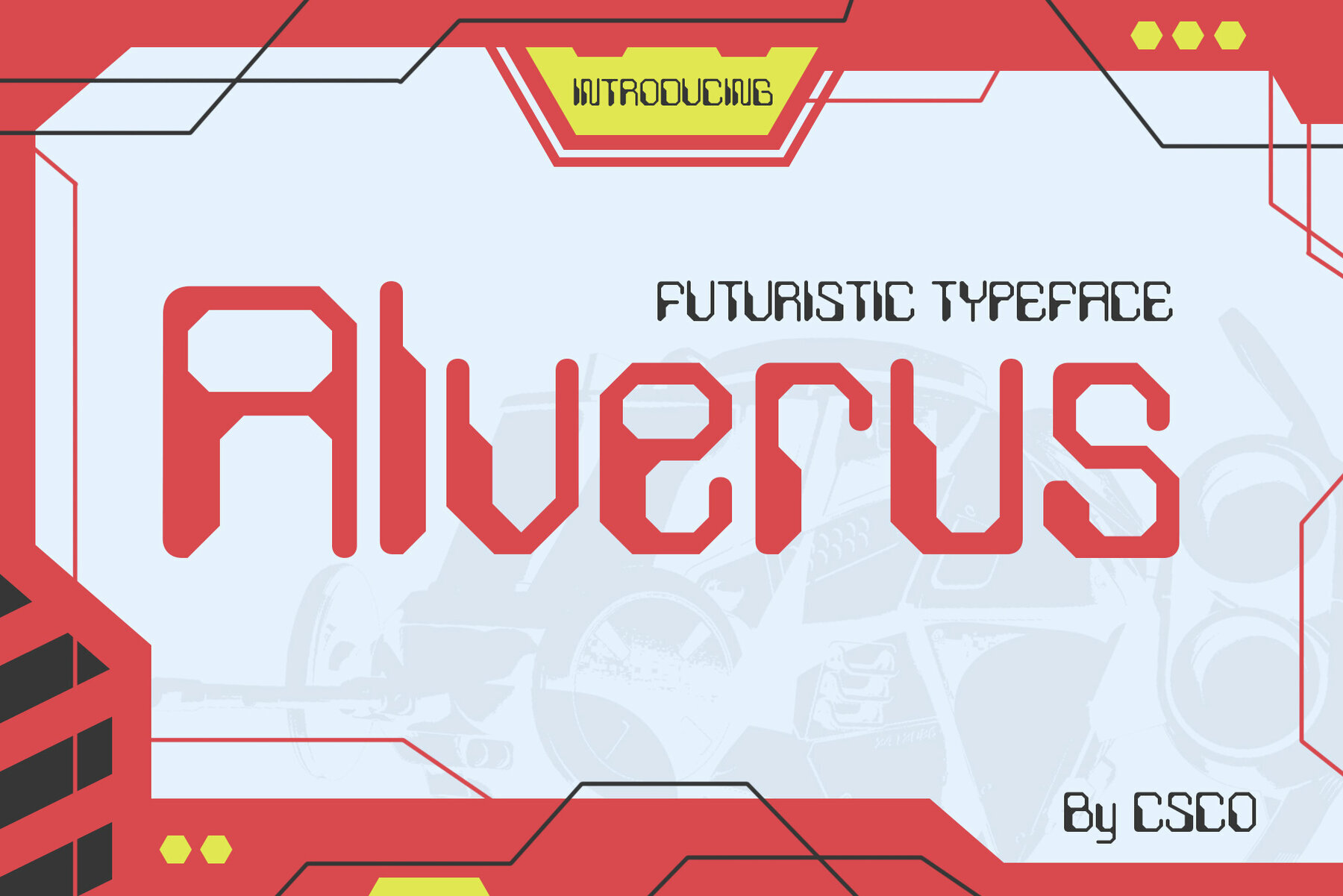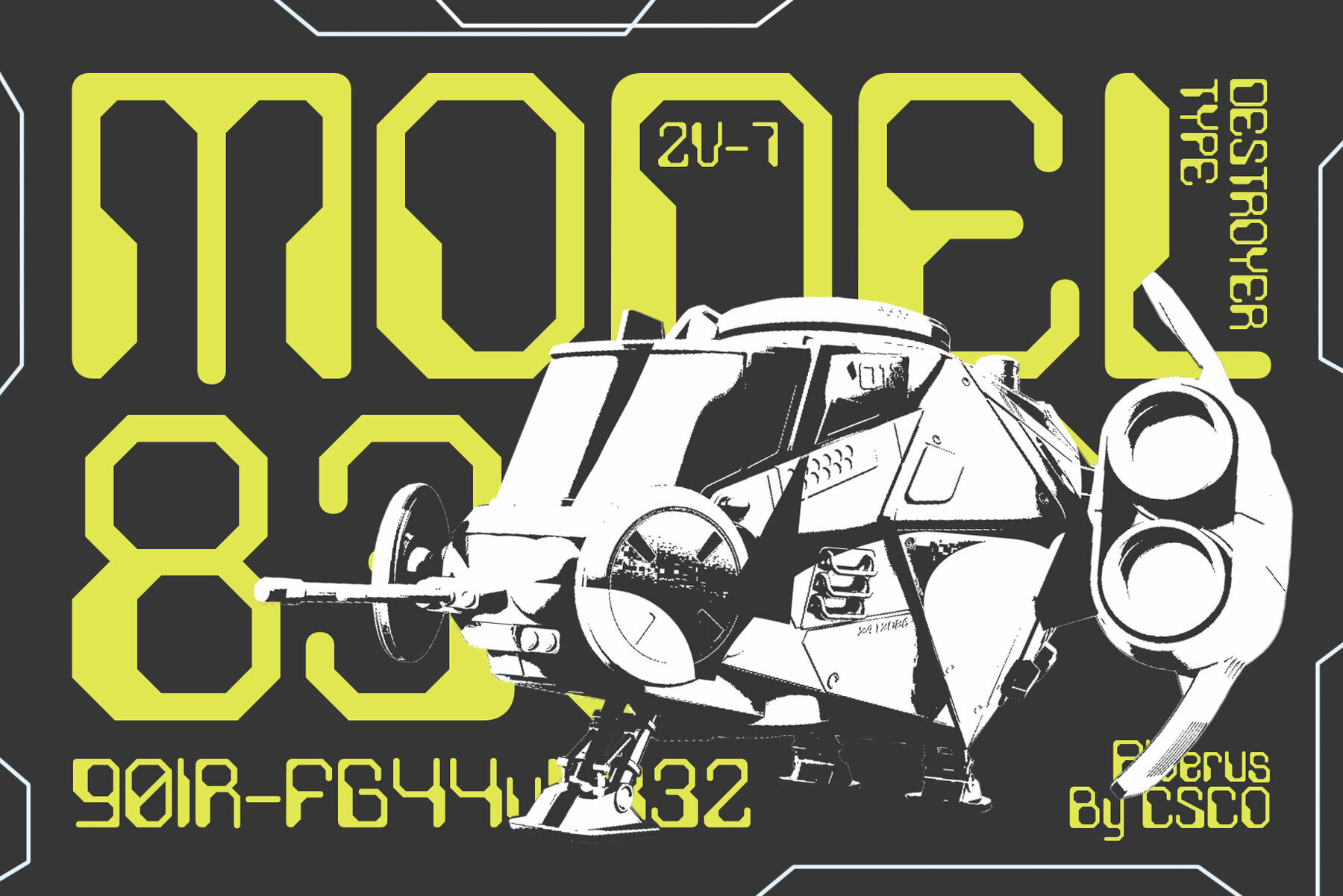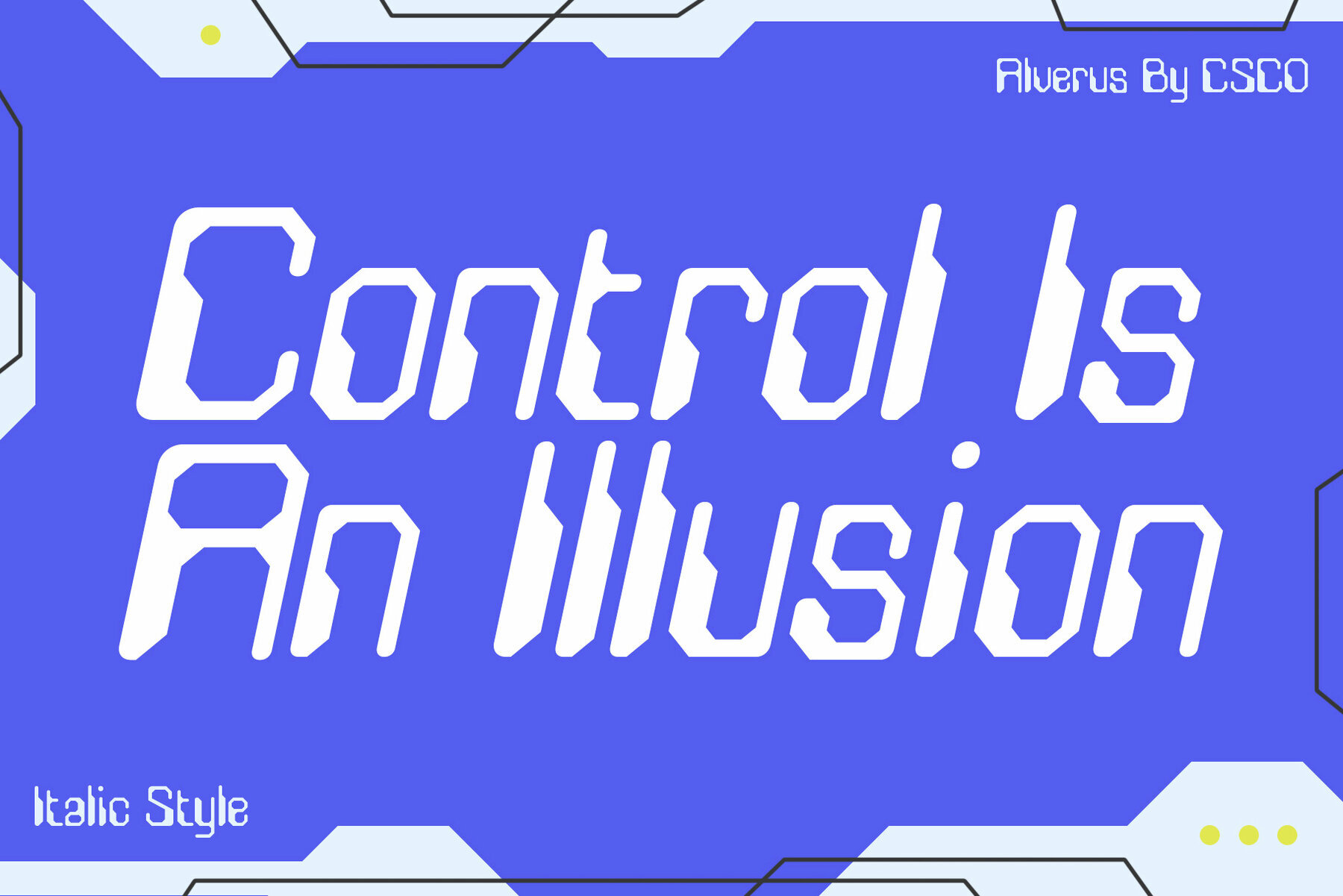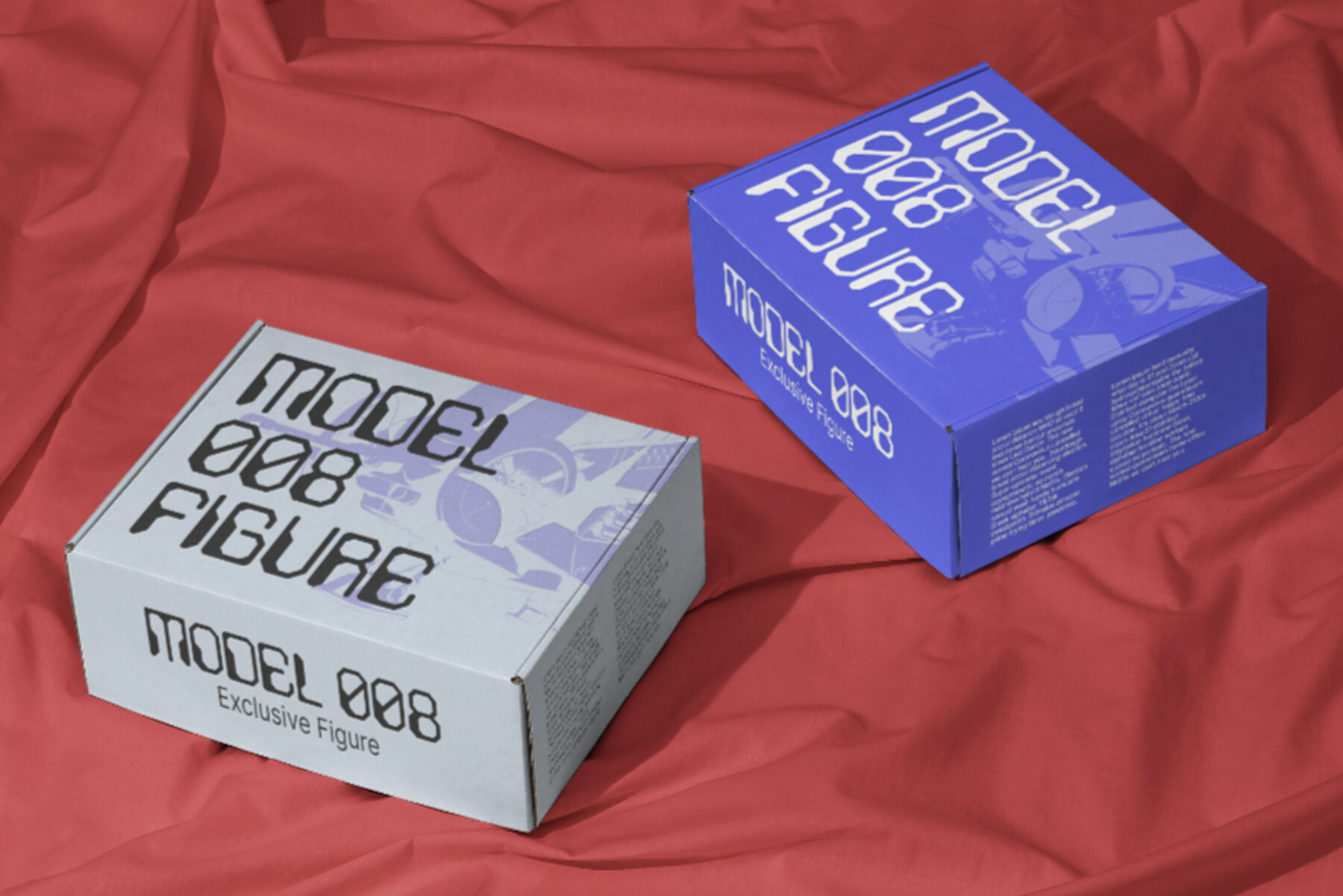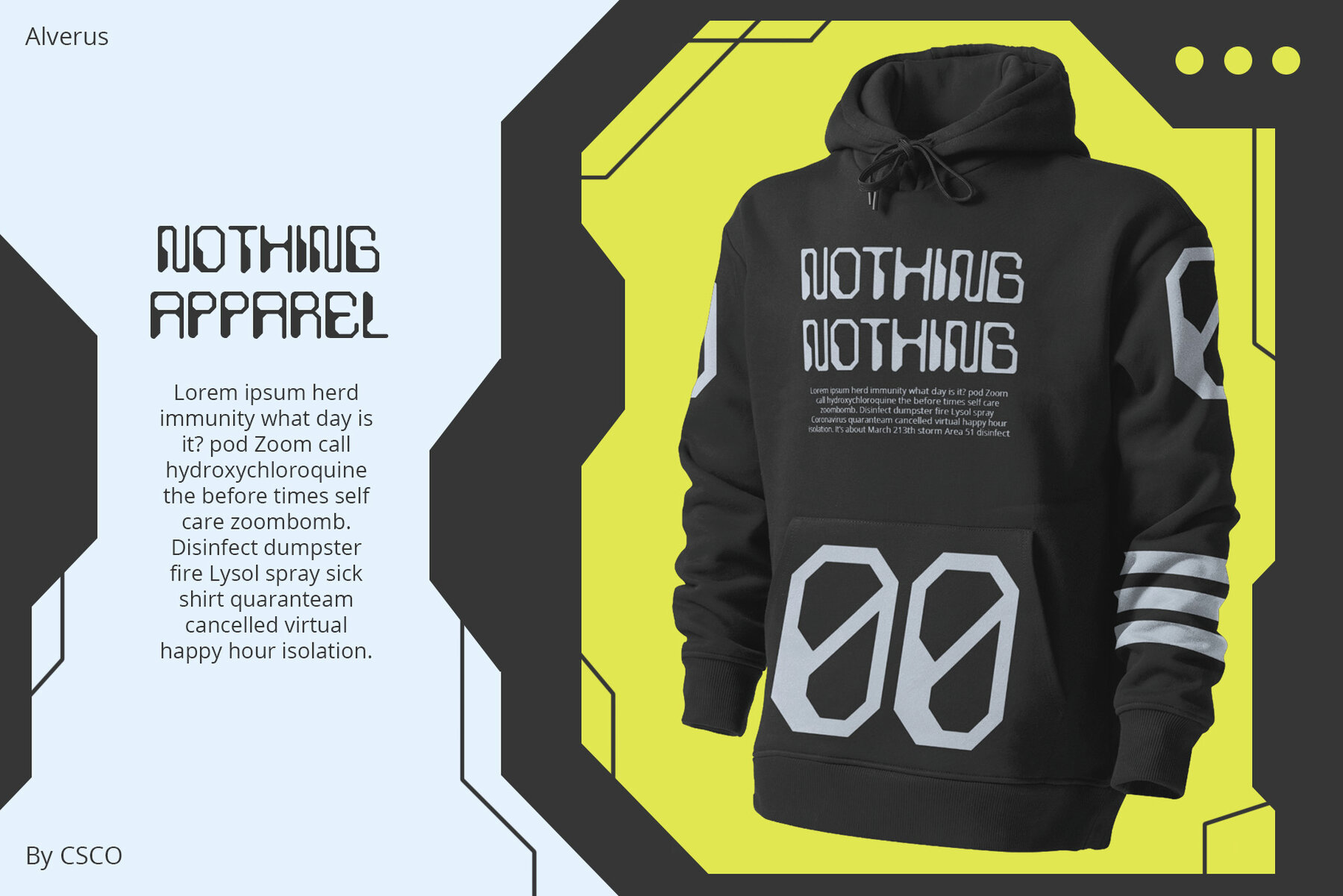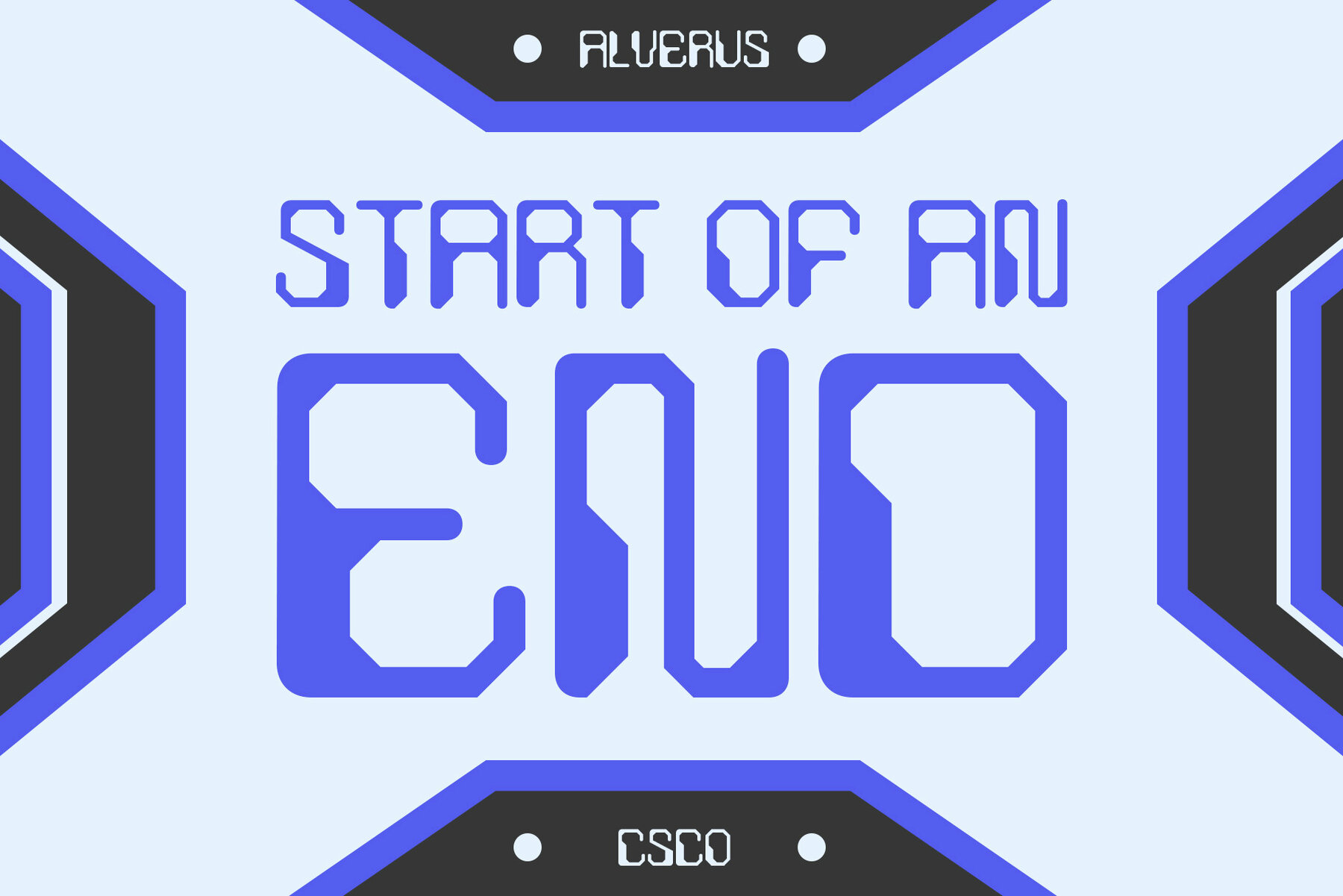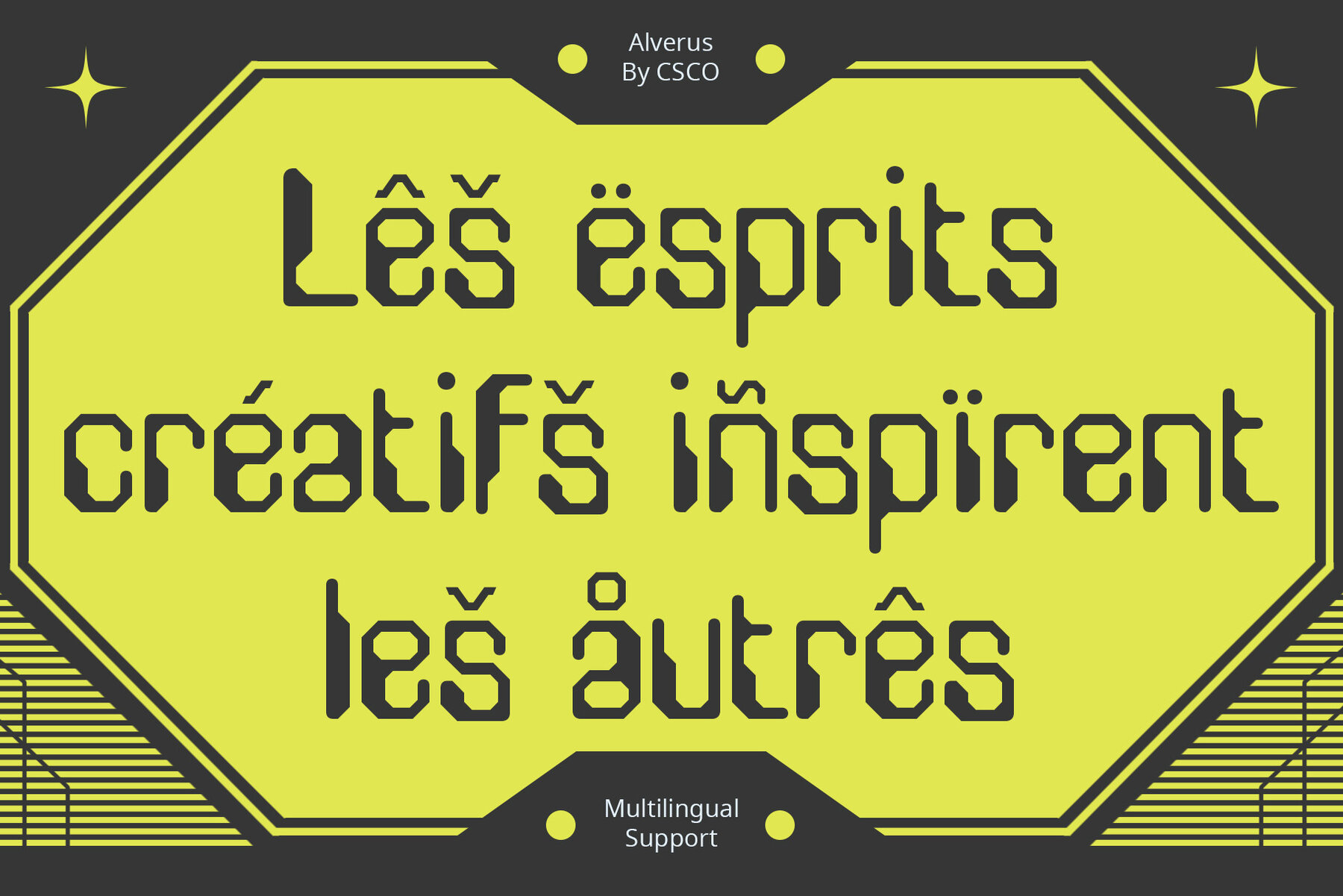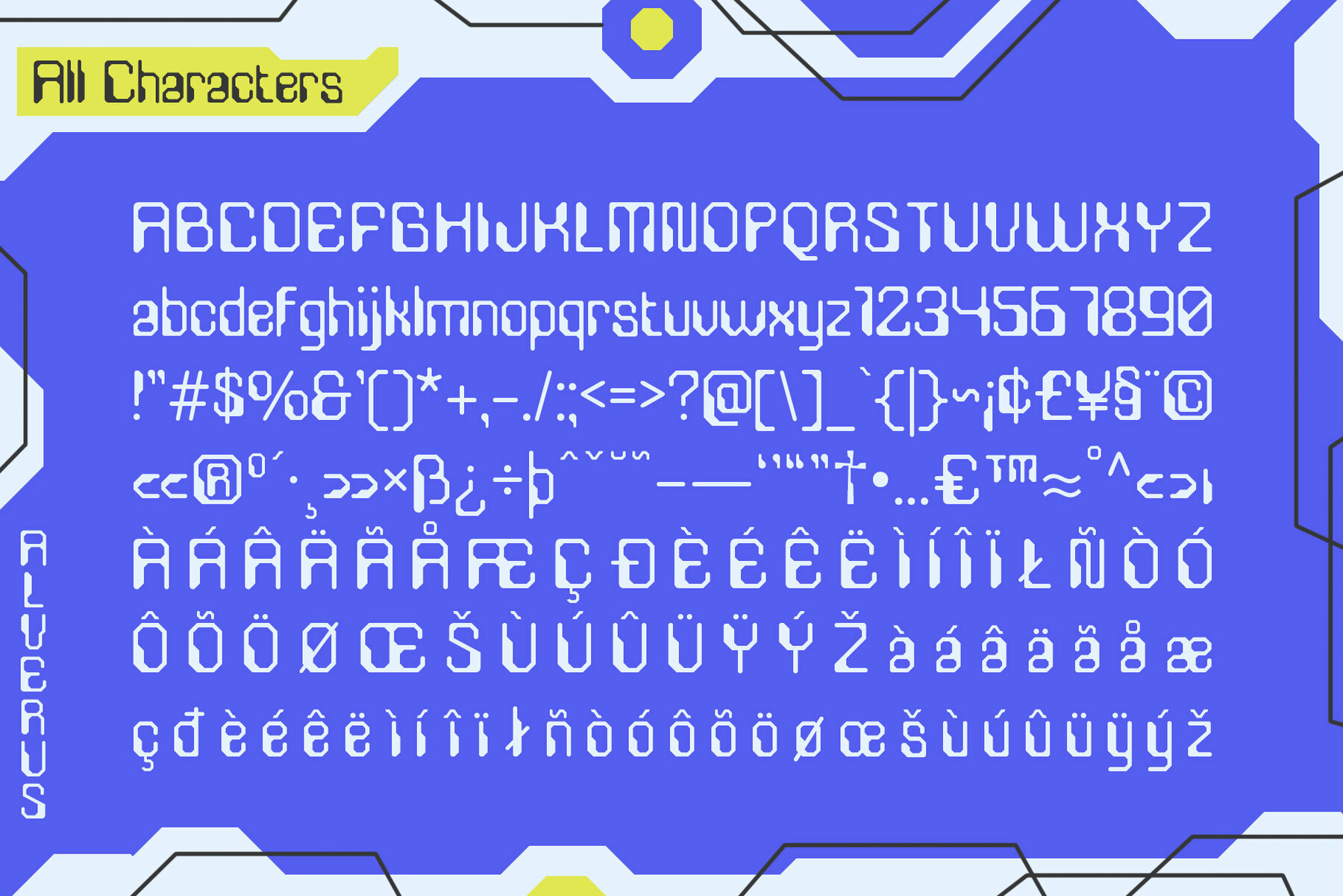
Alverus Font
Alverus is a visionary font inspired by the iconic aesthetics of Gundam, designed to elevate your projects into a realm of futuristic marvel. Its bold and dynamic style is perfect for creating standout designs that captivate and engage. Immerse your projects in the sleekness of Gundam's high-tech design. Alverus mirrors the iconic mecha's aesthetic, making it a standout choice for futuristic displays. Each character in Alverus is a testament to tech-infused typography. The font exudes a sense of advanced machinery, providing your designs with a modern and dynamic vibe. Alverus breaks the mold of conventional typefaces. Its bold strokes and unconventional shapes demand attention, making it ideal for titles and statements that need to stand out. This typeface can be used without requiring any specialized software. If you have any inquiries or need assistance, please feel free to contact us. We appreciate your support in enhancing your creative projects! Best regards, Craft Supply Co.Alverus Font: A Futuristic Ode to Gundam
Sleek Gundam Influence
Tech-Infused Typography
Bold and Unconventional